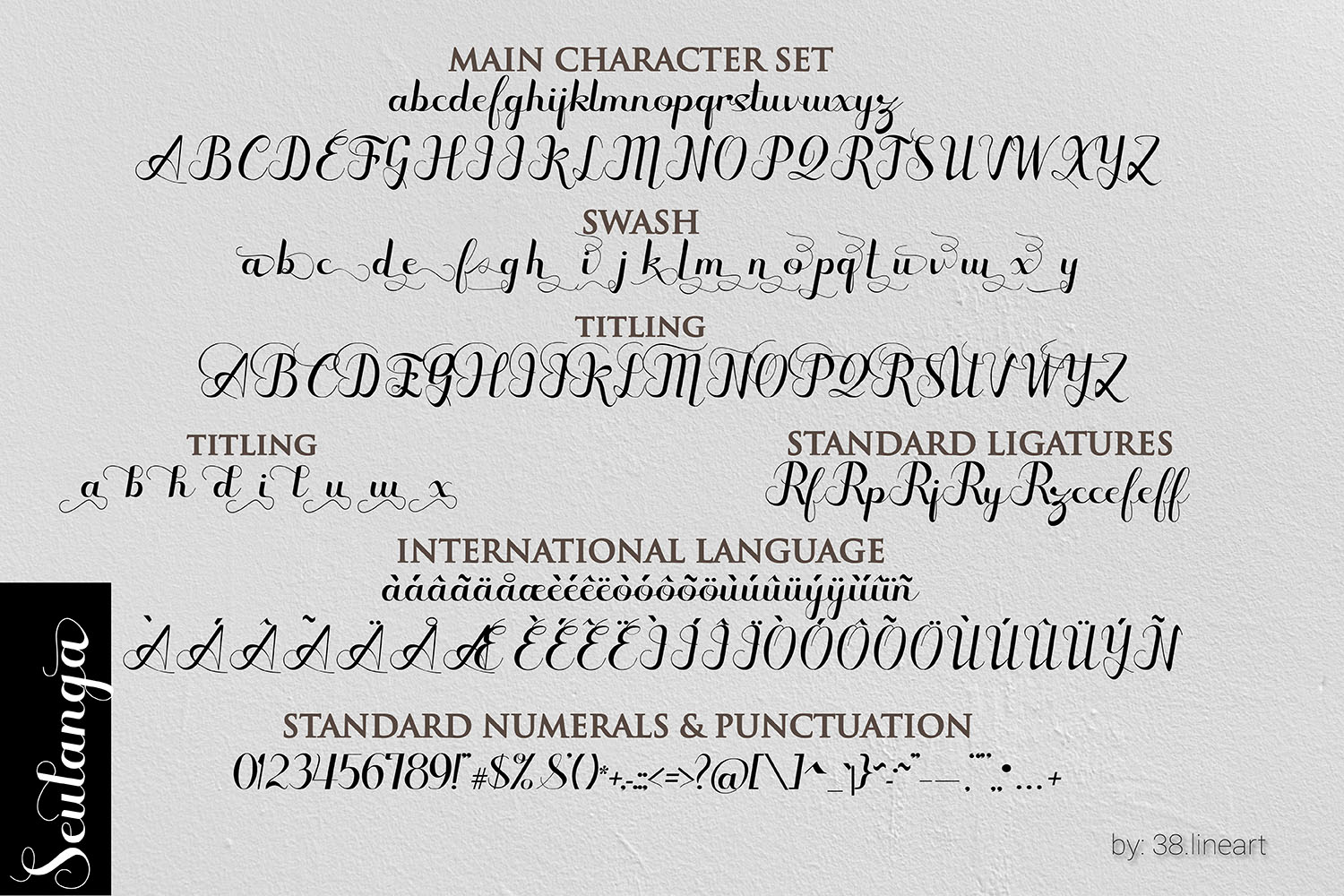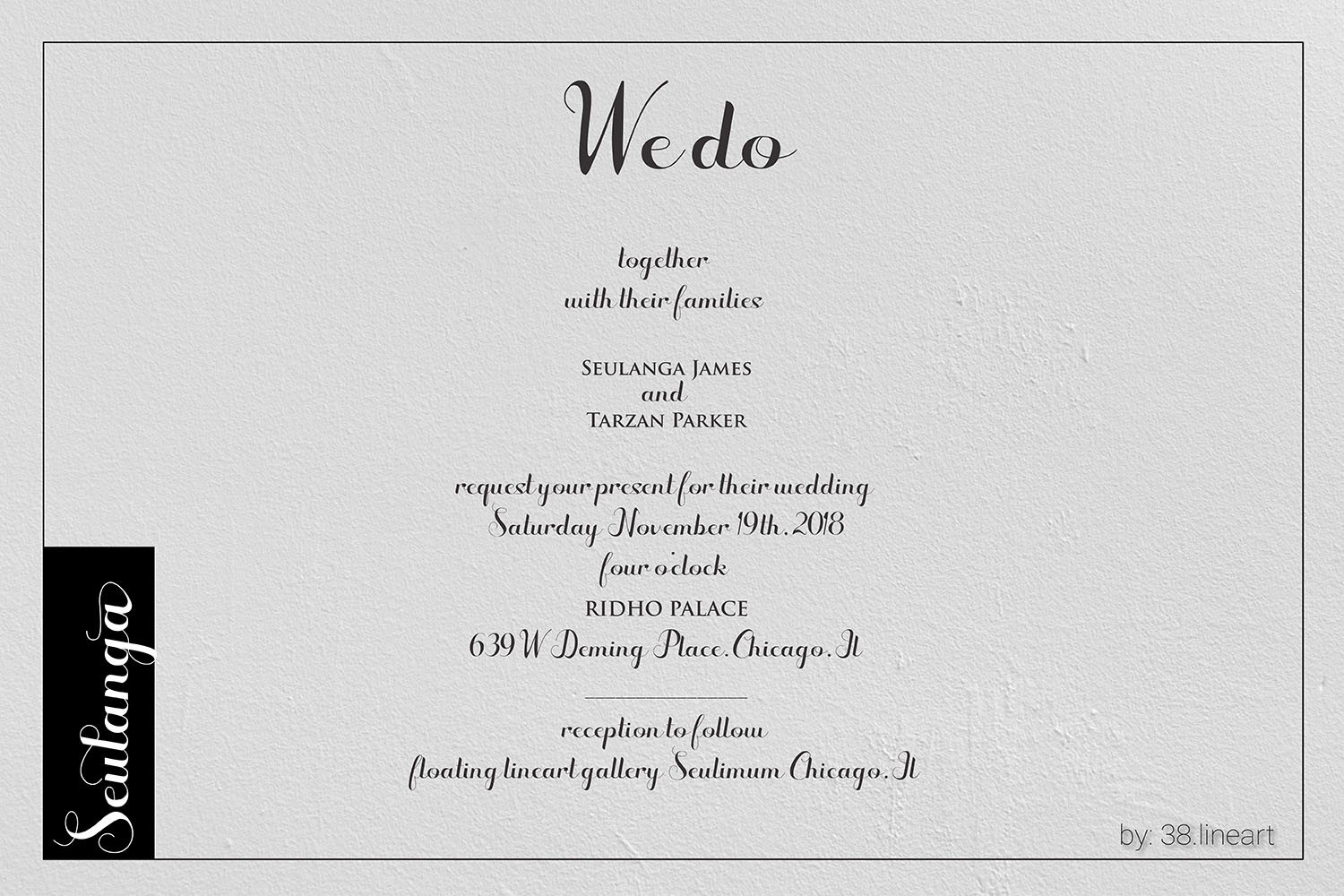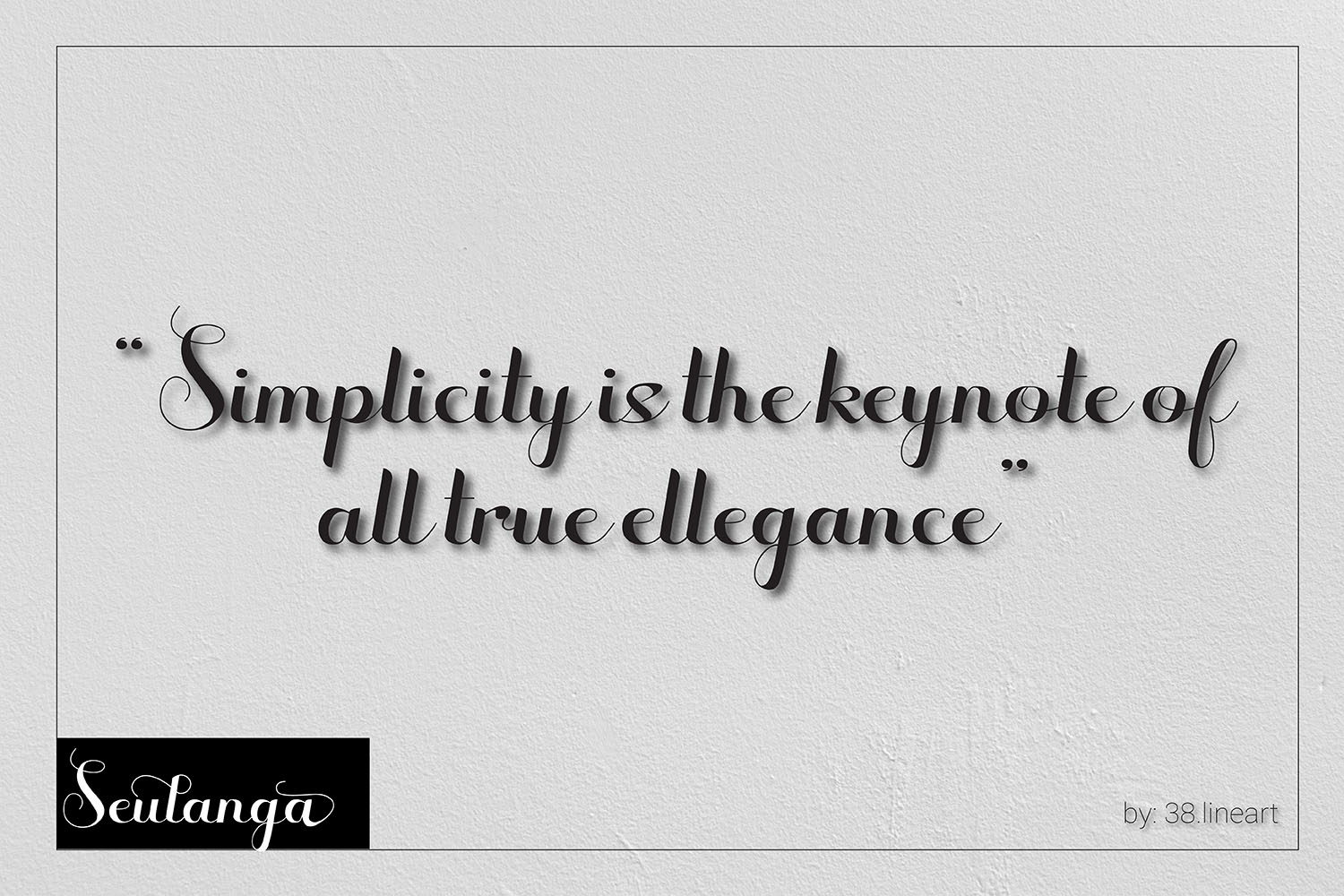
Introduction to Seulanga Font
Remember the thrill of finding the perfect font to elevate your creative project? It’s like stumbling upon a hidden treasure that transforms your design from ordinary to extraordinary. For designers, this moment is pure magic. And, we’re excited to introduce you to the Seulanga Font, a stunning modern calligraphy script that will take your content to the next level.
With its fashionable flair and sophisticated style, the Seulanga Font is the perfect design resource for those seeking a high-quality, versatile font. Whether you’re working on a personal project or a commercial campaign, this font’s transparent background makes it easy to incorporate into your design without any distractions.
Key Features of Seulanga Font
- High-quality, unique font design ideal for creative projects requiring a modern touch.
- Seulanga Font features a transparent background, allowing for seamless integration with background images or colors.
- Designed to be highly legible, making it suitable for use in a wide range of design contexts, from headings to body text.
- High-resolution font files (up to 1024 x 1024 pixels) ensure crisp and clear text rendering, even at large sizes.
- Perfect design resource for graphic designers, digital artists, and anyone seeking a distinctive, modern font for their creative project.
Honest Review: Seulanga Font
The Seulanga Font is a high-quality typeface that can elevate any design. I particularly love the clean and modern aesthetic it brings to my designs.
- High-quality typography
- Perfect for digital and print designs
- Only a few font styles are available
- No extended character set
- Not ideal for complex or large-scale projects
Overall, the Seulanga Font is a solid choice for any designer looking for a clean and modern typeface. While it may have some limitations, its high quality and versatility make it a great addition to any design resource library. I would definitely recommend it for smaller-scale projects or personal use.
Tips for Getting the Most Out of Seulanga Font
Experiment with different font sizes, colors, and combinations to create unique and eye-catching designs. Use the transparent background feature to add depth and visual interest to your designs.
Seulanga Font is perfect for a variety of design projects, including logos, business cards, brochures, and social media graphics. Its high-quality design and transparent background make it an excellent choice for designers of all levels.
Yes, the Seulanga Font includes a transparent background option, making it ideal for creative projects that require a high level of design flexibility. When using the font, you can easily adjust the background to suit your project’s requirements.